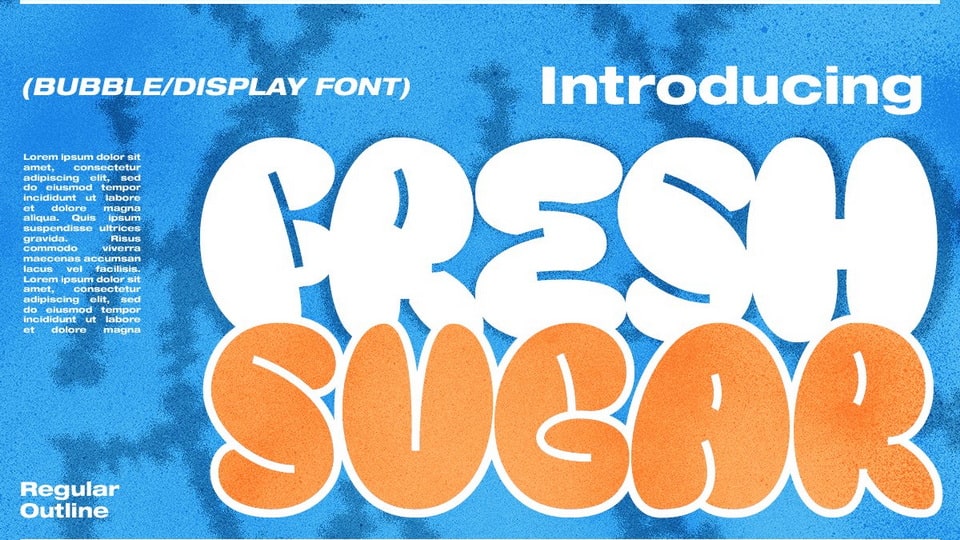
Download Fresh Sugar font, a display typeface that takes the classic bubble font style and adds a groovy flair, creating a unique and eye-catching visual language.